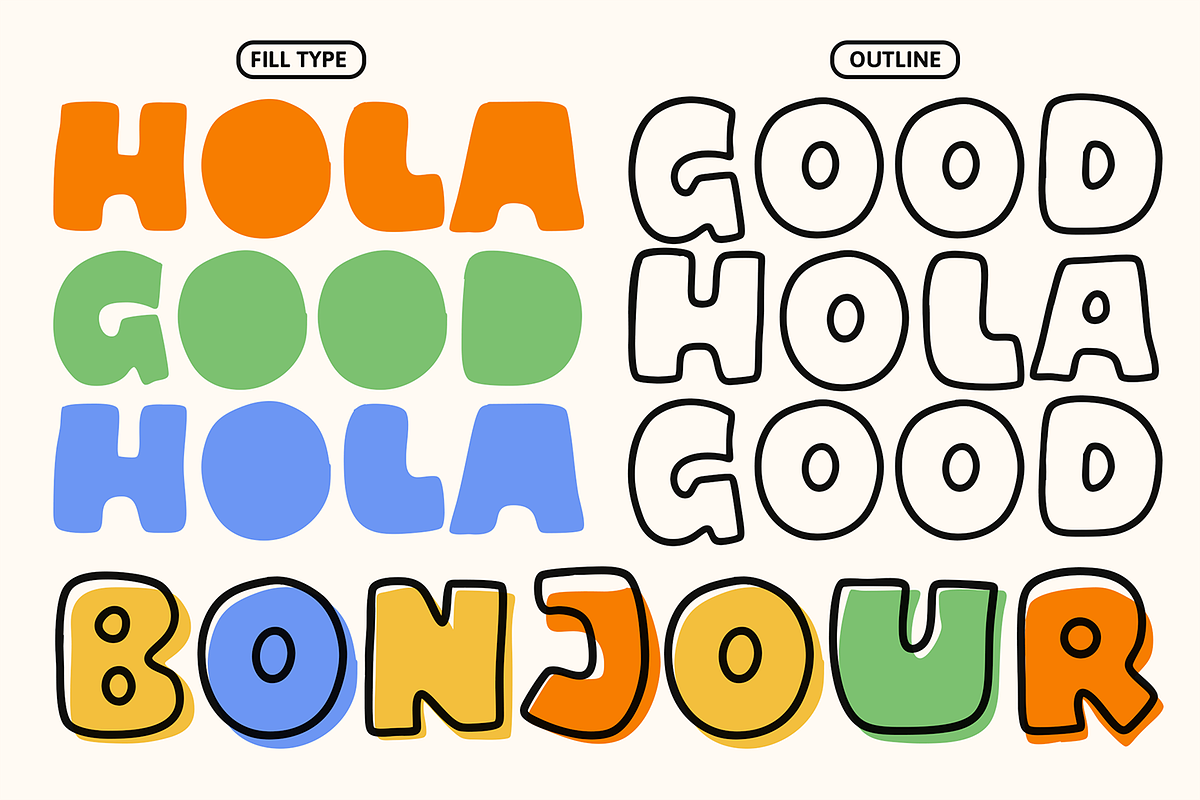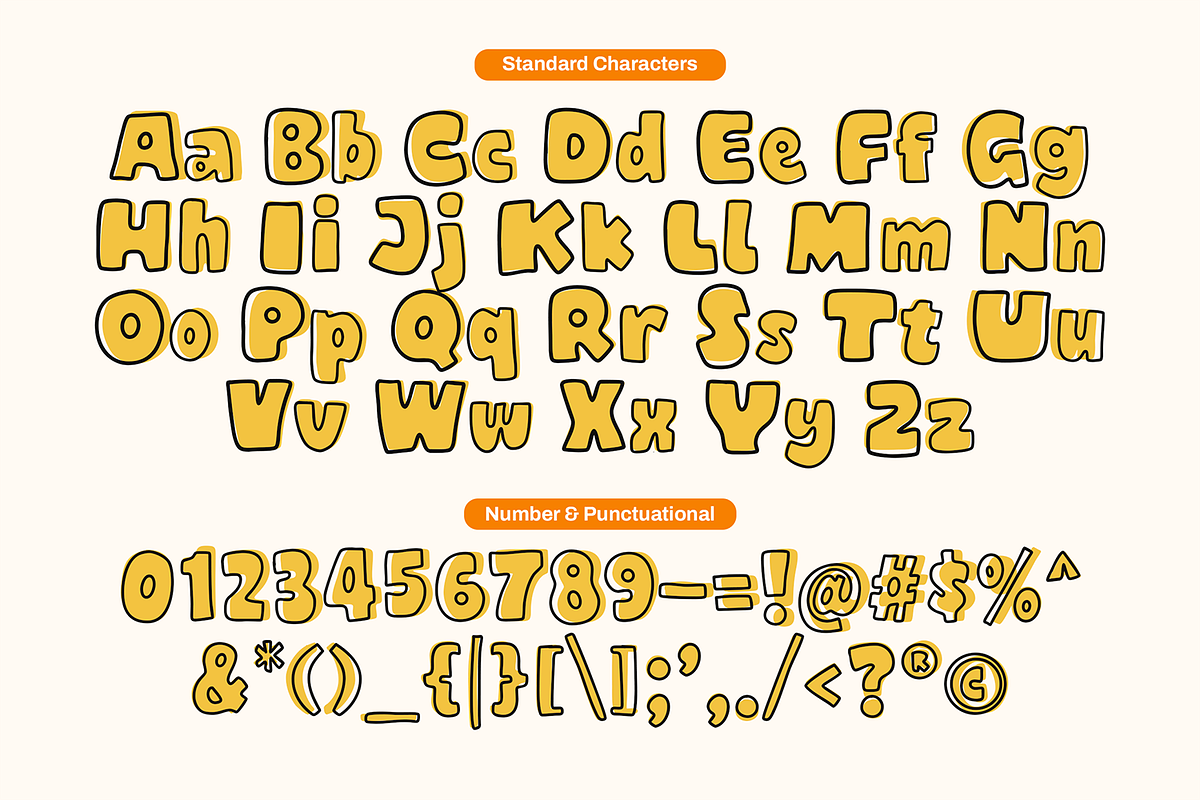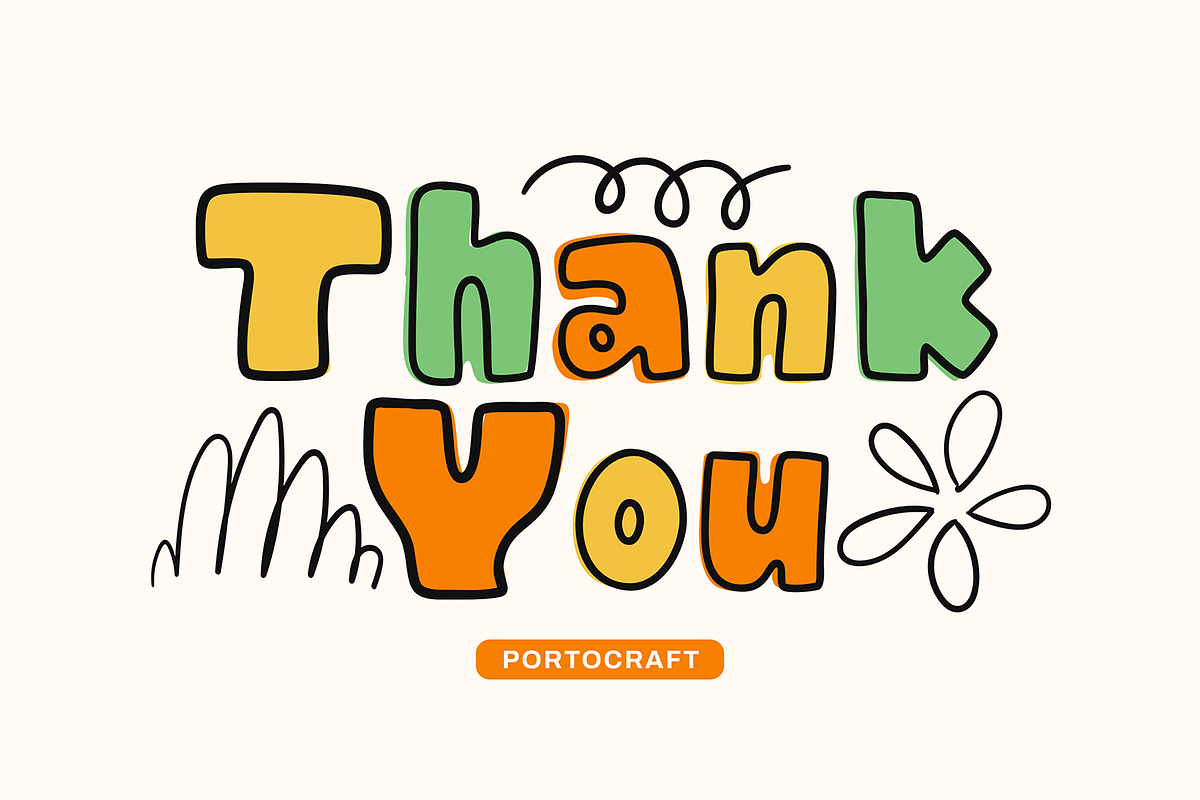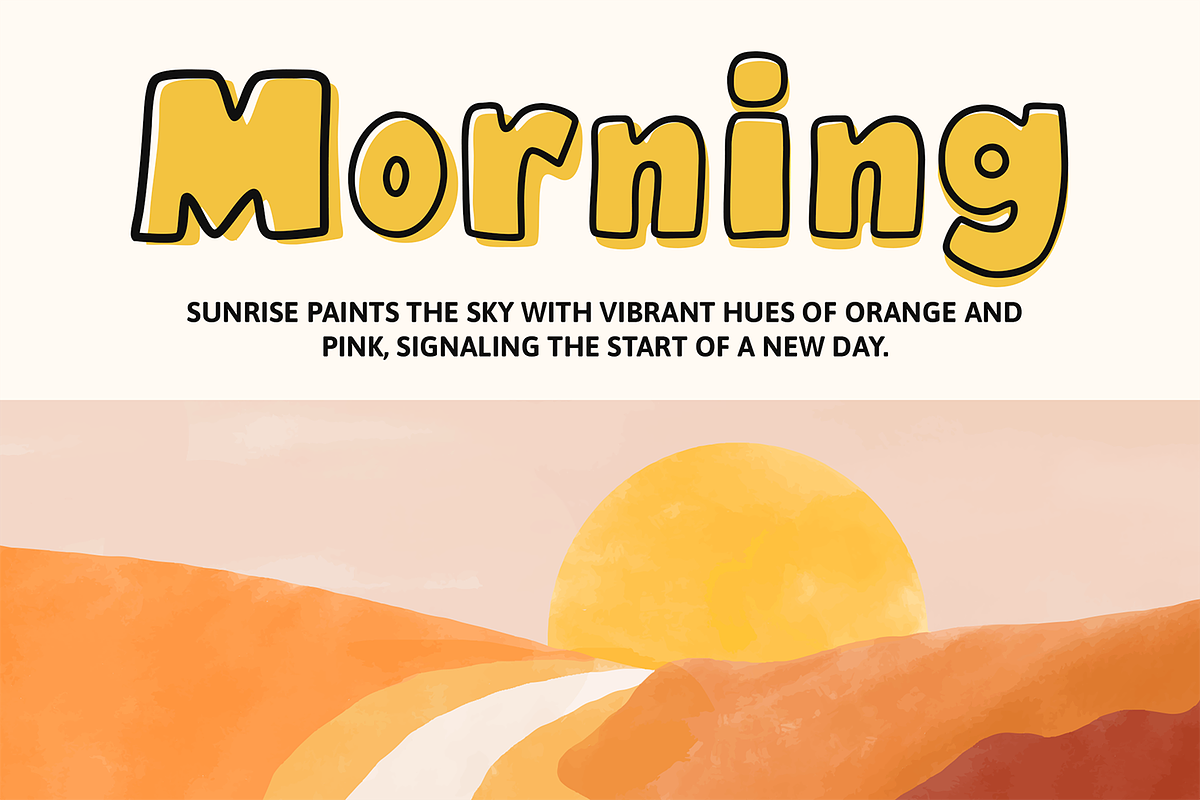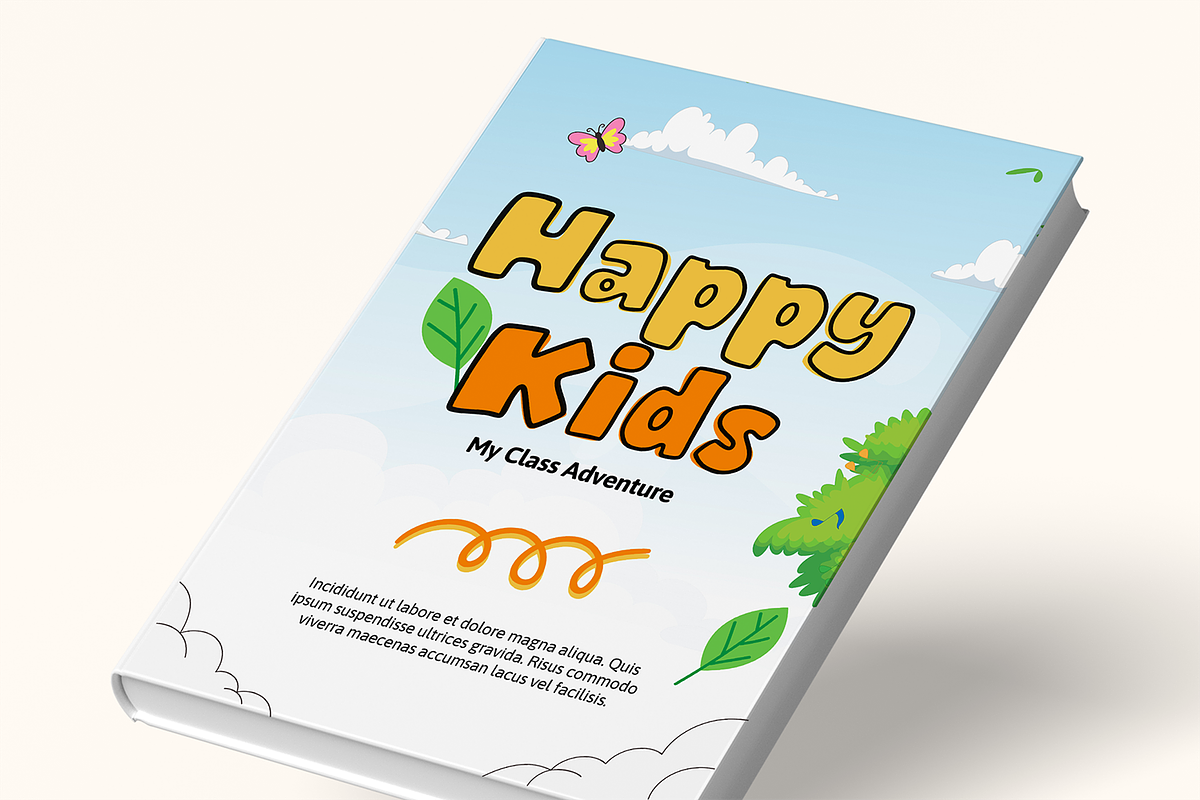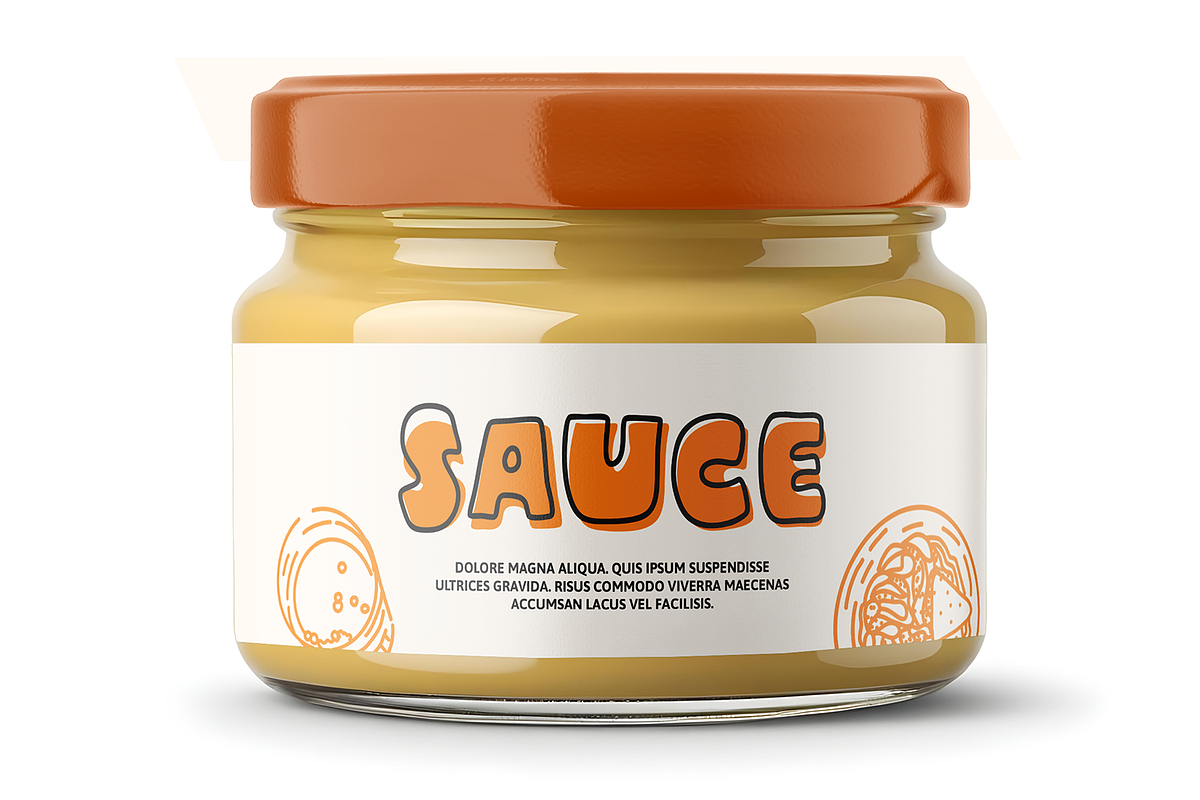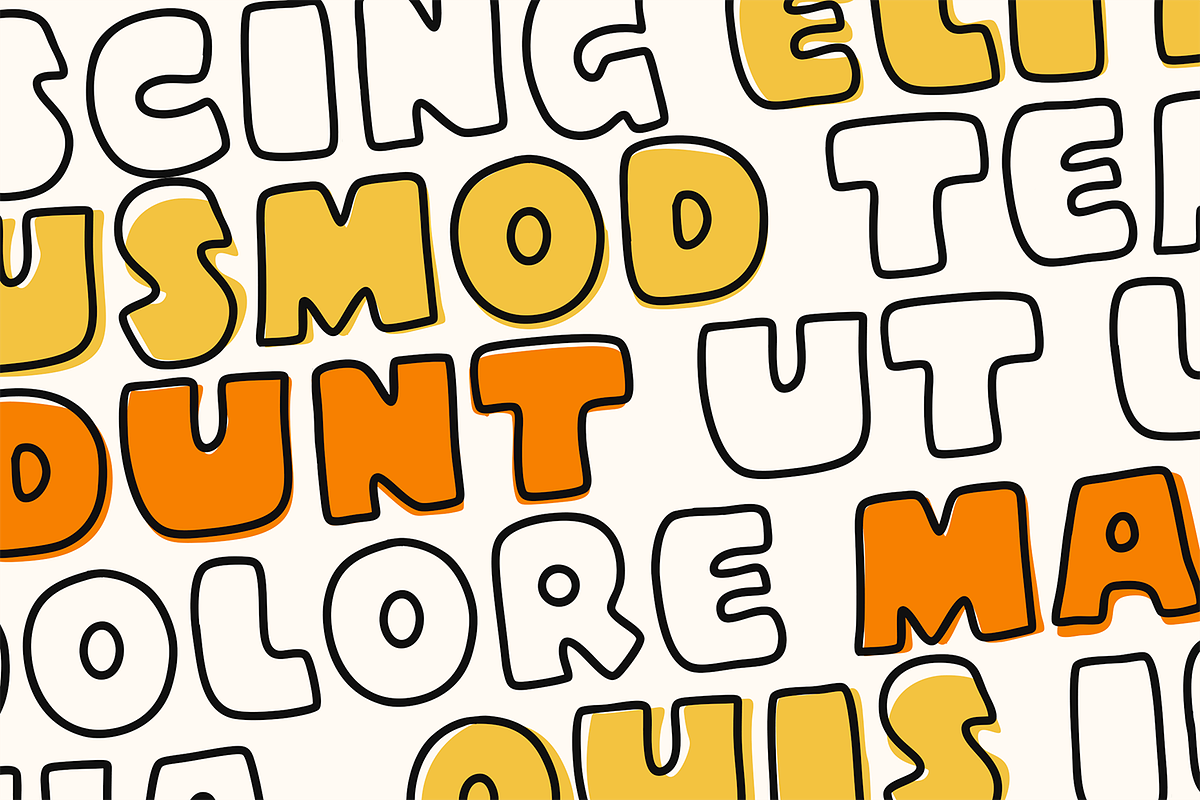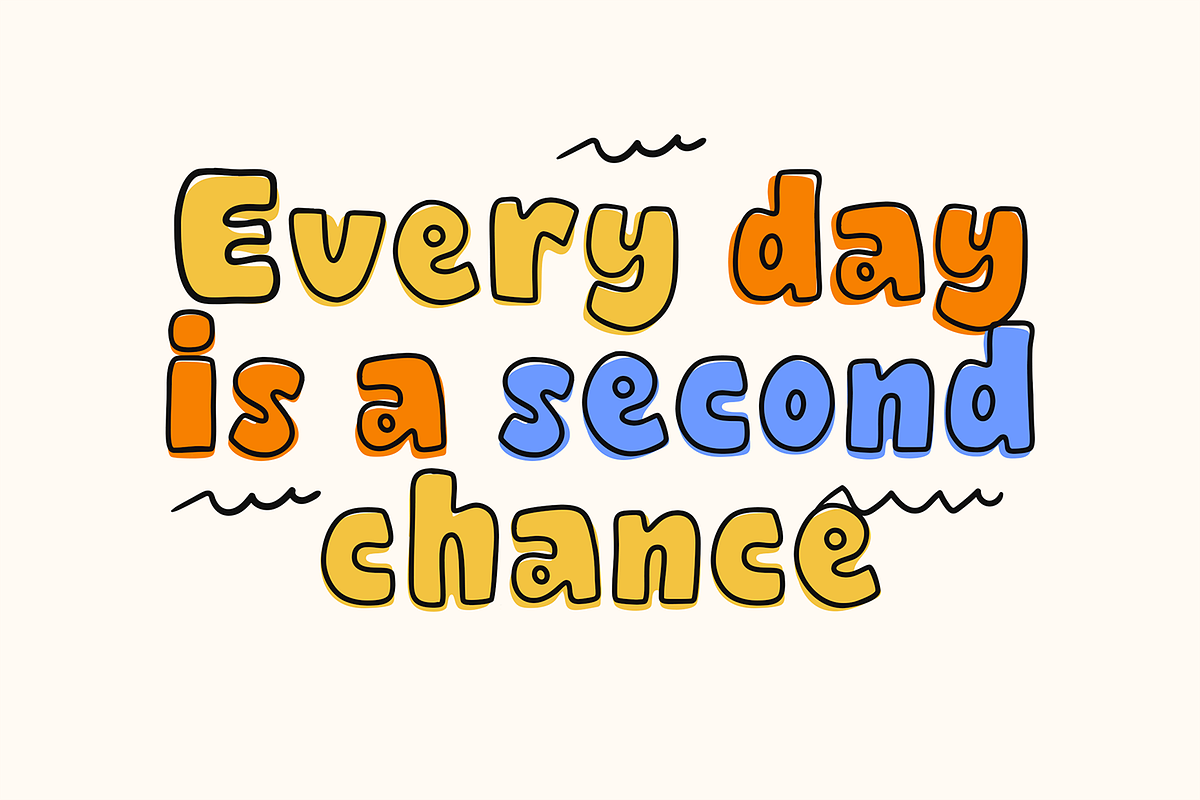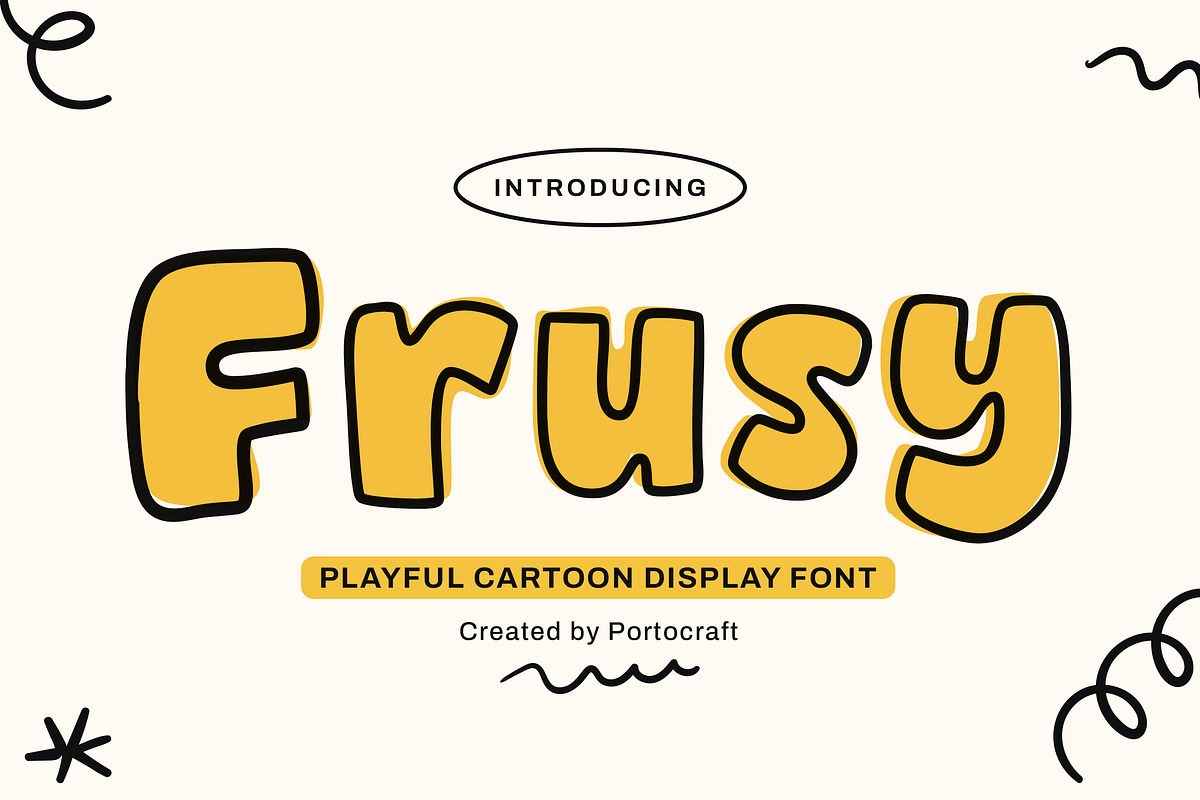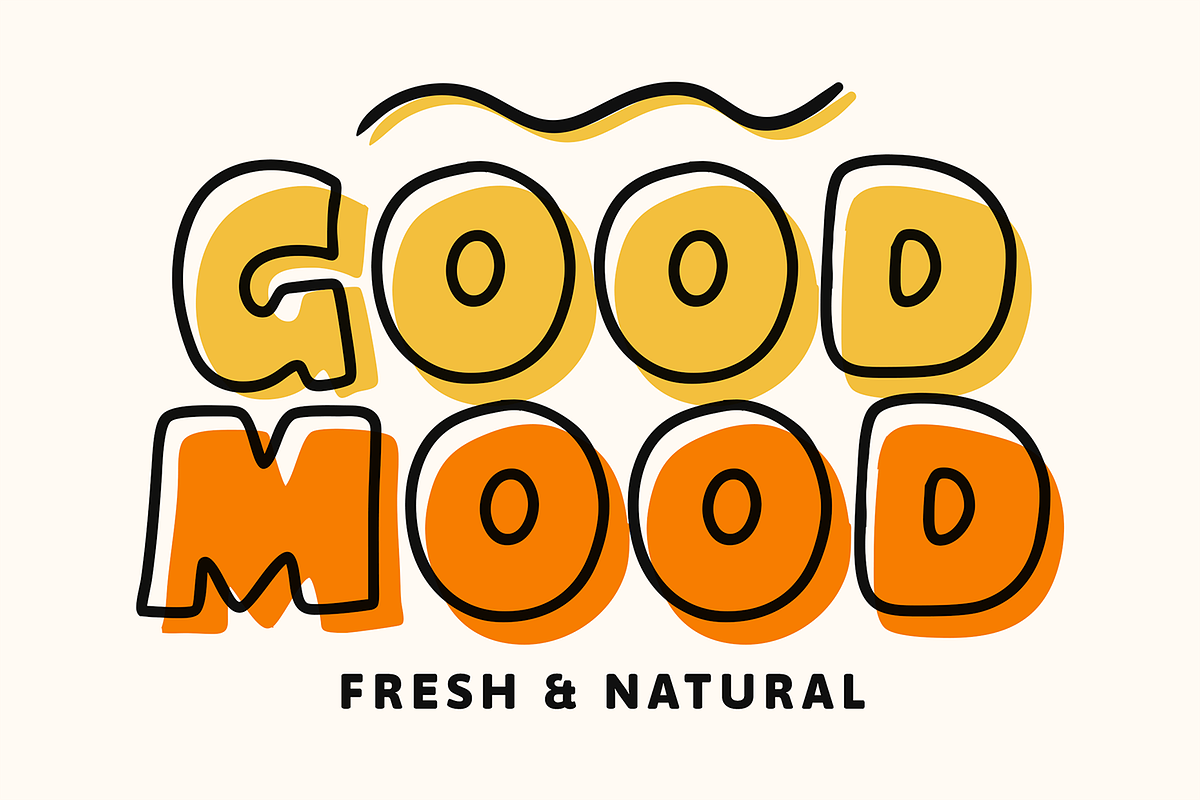
Frusy – Playful Cartoon Display
Frusy is a playful cartoon display font full of fun, joy, and creativity. With its bold shapes, rounded edges, and quirky style, Frusy is perfect for children’s books, comics, posters, branding, packaging, and any project that needs a cheerful and whimsical vibe.
This font captures the essence of cartoons and hand-drawn lettering, making it versatile for digital projects, merchandise, invitations, and social media graphics. Whether you’re working on a playful logo or an eye-catching headline, Frusy will add personality and positivity to your design.
- Unique Letterforms